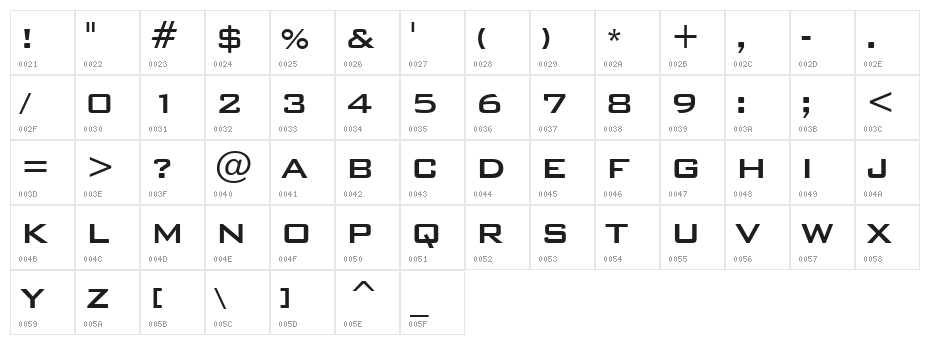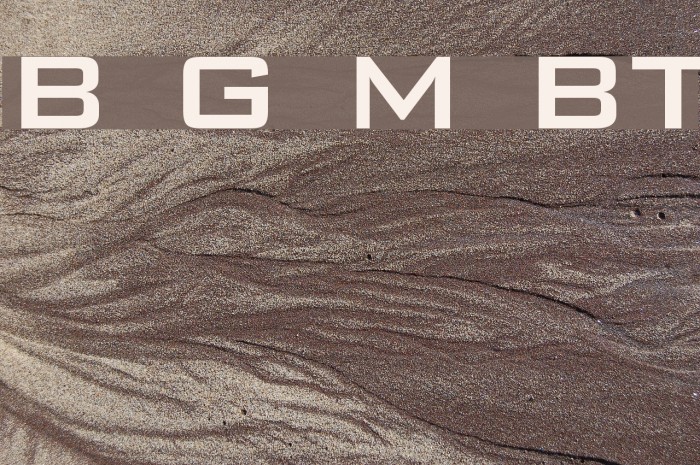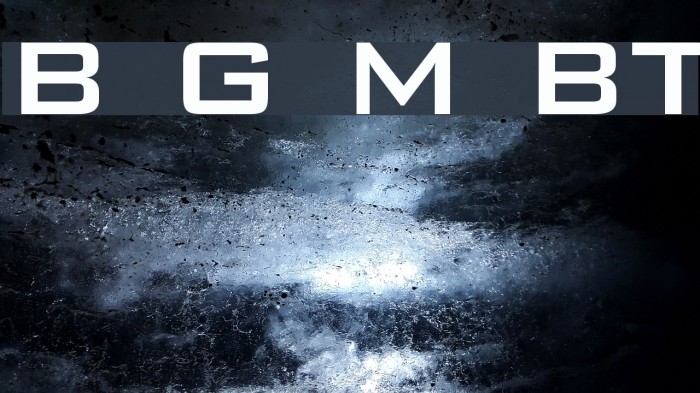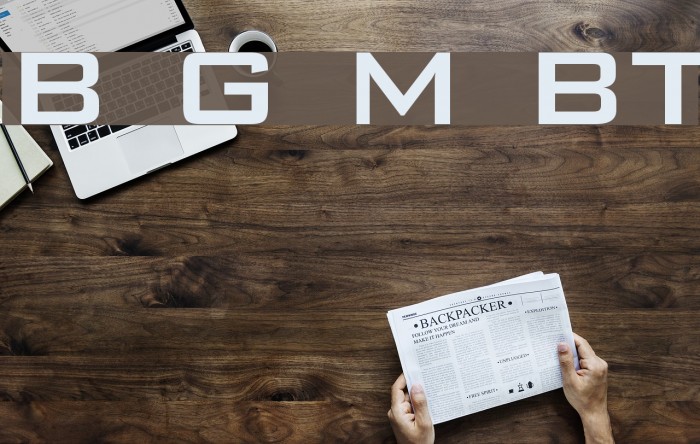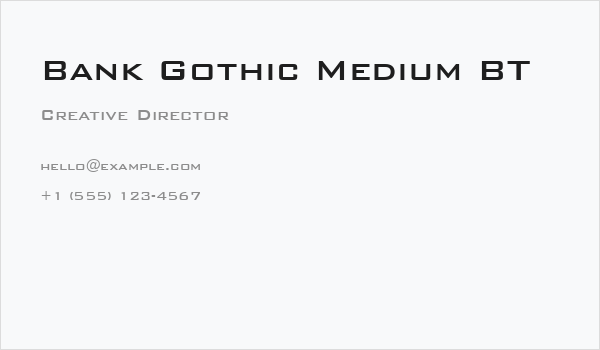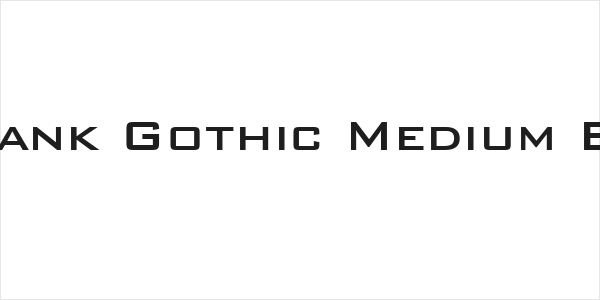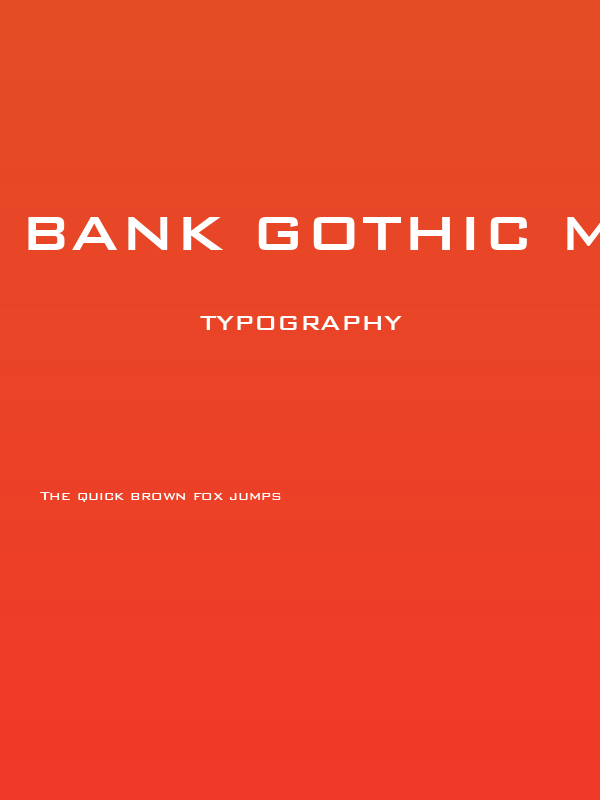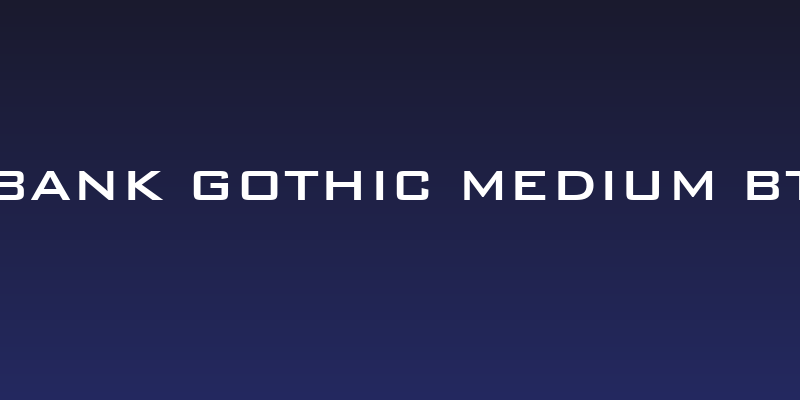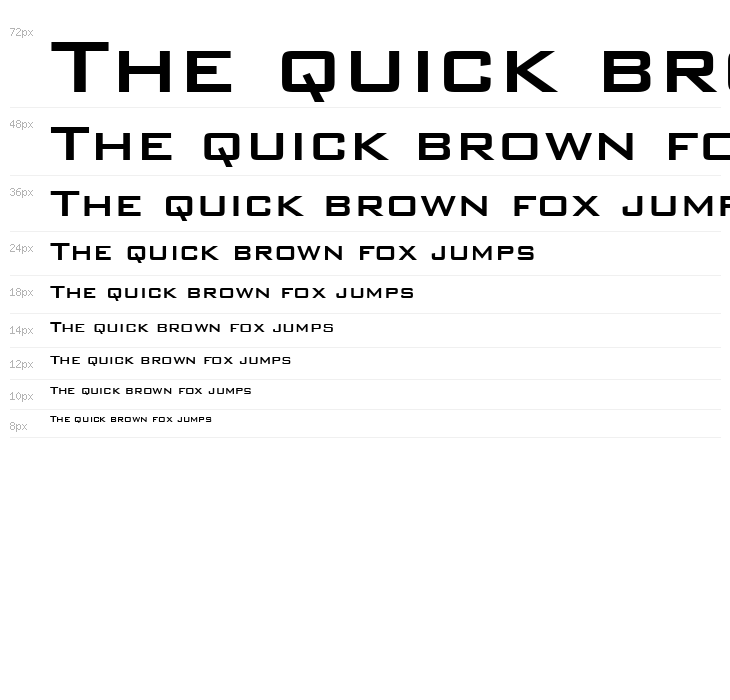
Bank Gothic Medium BT Font
Bank Gothic Medium BT Description
This font features a geometric and futuristic design with a strong, industrial feel. The characters are constructed with straight lines and sharp angles, giving it a modern and sleek appearance. The uppercase letters are uniform in height, while the lowercase letters maintain a consistent style, enhancing readability. The numerals and special characters are designed to match the overall aesthetic, providing a cohesive look. This font is ideal for projects that require a bold and contemporary touch, such as technology branding or sci-fi themed designs.
| Proposed Projects | Ideal for technology branding, sci-fi themed designs, and modern advertising. |